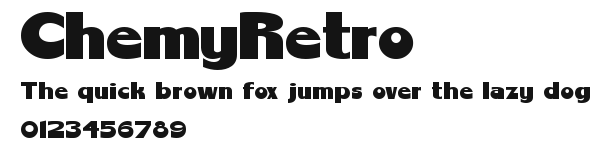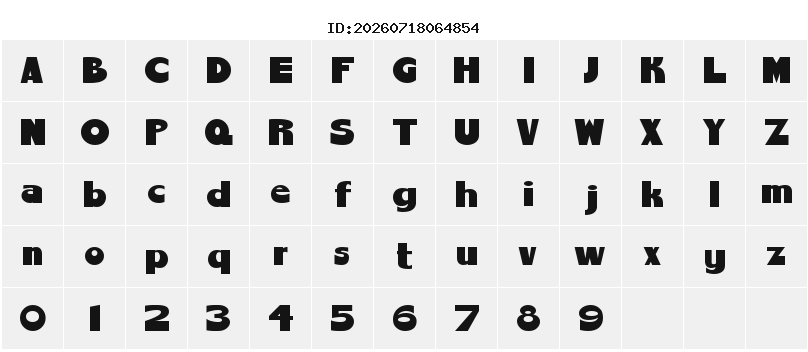
• Font Name: ChemyRetro
• Full Font Name: ChemyRetro
• Designer: J. Batchelor
• Manufacturer: J Batchelor (WanderingJazz)
About ChemyRetro.ttf
ChemyRetro.ttf is a modern, elegant sans-serif font designed for ultimate readability and visual harmony. Perfect for branding, headlines, web design, and print materials.